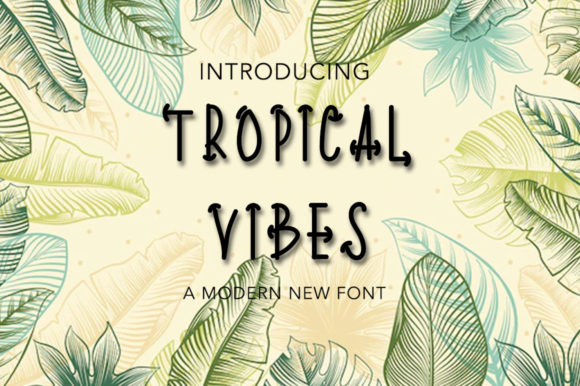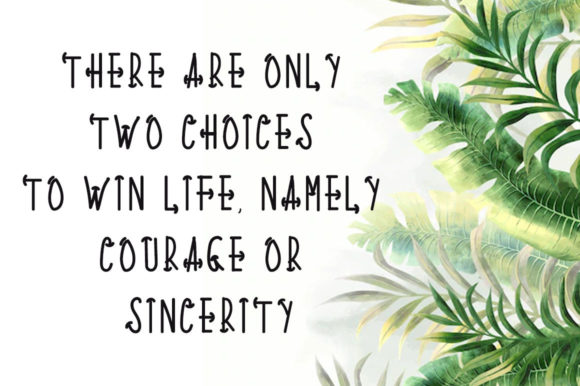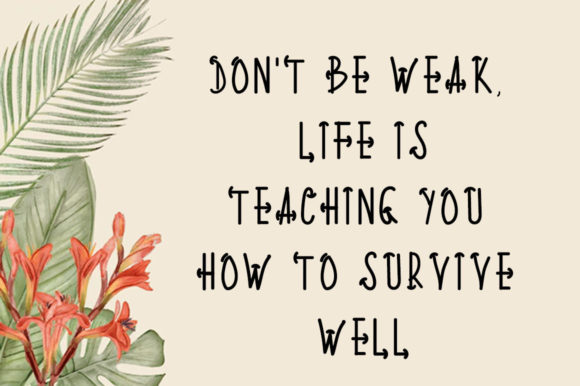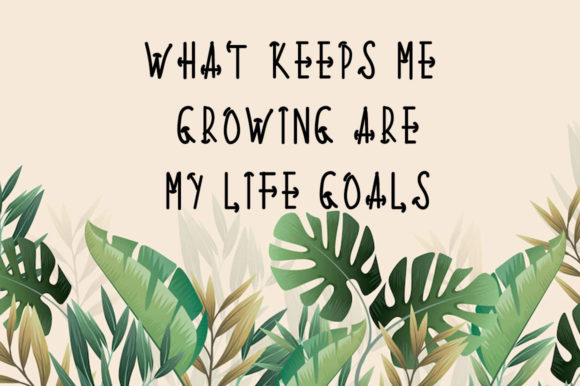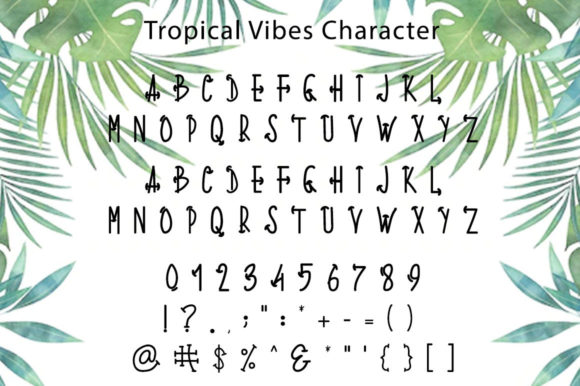
Tropical Vibes Font
“Tropical Vibes” is an elegant and dainty handwritten font characterized by sweet and delicate swashes. With its original and appealing look, this font is a perfect choice for a variety of crafty ideas, ranging from letterheads and titles to stationery. Its versatility makes “Tropical Vibes” well-suited for logos, headings, t-shirts, letterhead, signage, labels, news, posters, badges, and more.
The elegant and dainty nature of “Tropical Vibes” adds a touch of sophistication to your text. The sweet and delicate swashes enhance the overall aesthetic, making it a font that stands out with grace and charm.
In letterheads and titles, “Tropical Vibes” becomes an exquisite choice, elevating the visual appeal with its elegant and original look. The font contributes to a refined and sophisticated presentation.
For stationery, the font’s dainty and crafty vibe makes it a delightful option. Whether used for personal or professional correspondence, “Tropical Vibes” adds a touch of creativity to the design.
Logos and headings benefit from the elegant and original style of “Tropical Vibes.” Its graceful appearance contributes to a distinctive and memorable visual identity.
On t-shirts and apparel, “Tropical Vibes” brings a touch of sophistication to the design. The dainty swashes add a unique flair, making it suitable for fashion-forward and stylish applications.
Letterhead and signage can adopt the elegant look of “Tropical Vibes” to create a polished and refined presentation. The font’s originality ensures that the text stands out with a touch of sophistication.
Labels, news, posters, and badges can utilize the crafty and elegant aesthetic of “Tropical Vibes.” Its versatility allows it to seamlessly integrate into various design contexts, making it a valuable asset for a wide range of creative projects.
In summary, “Tropical Vibes” is an elegant and dainty handwritten font with sweet and delicate swashes. Whether used for logos, headings, t-shirts, letterhead, signage, labels, news, posters, badges, and more, let “Tropical Vibes” be the font that adds a touch of sophistication and originality to your creative endeavors.